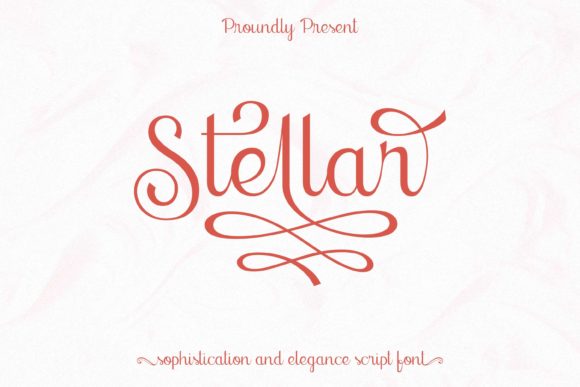
Step into the enchanting world of Stellar Font, a captivating script font that exudes elegance, charm, and individuality. This exquisite creation by Lone Army is not just a font; it's an artistic expression that will transform your designs into breathtaking masterpieces.
With its intricate calligraphy-inspired details, Stellar Font brings an air of sophistication and exclusivity to your projects. Every letter is meticulously crafted with flowing strokes and graceful curves, adding a touch of personal charm to any text. Its expressive nature makes it perfect for branding, logos, invitations, wedding stationery, and any occasion that calls for a touch of timeless beauty.
Imagine the impact of your brand with a logo adorned with Stellar Font's enchanting script. Its unique and distinctive style will leave a lasting impression on your audience, setting you apart from the ordinary.
Unleash your creativity with Stellar Font and explore its endless possibilities. Design eye-catching social media posts that capture attention and leave your followers in awe. Craft unforgettable invitations and greeting cards that convey your heartfelt messages in a truly special way. Whether it's a personal note to a loved one or a formal invitation to a grand event, Stellar Font adds a touch of elegance that will be cherished.
For those seeking a font that speaks to the heart, Stellar Font is the answer. Its delicate lines and emotive curves create a connection between you and your audience, evoking emotions that resonate with the soul. It's the perfect choice for heartfelt quotes, meaningful poetry, and any text that seeks to elicit a profound response.